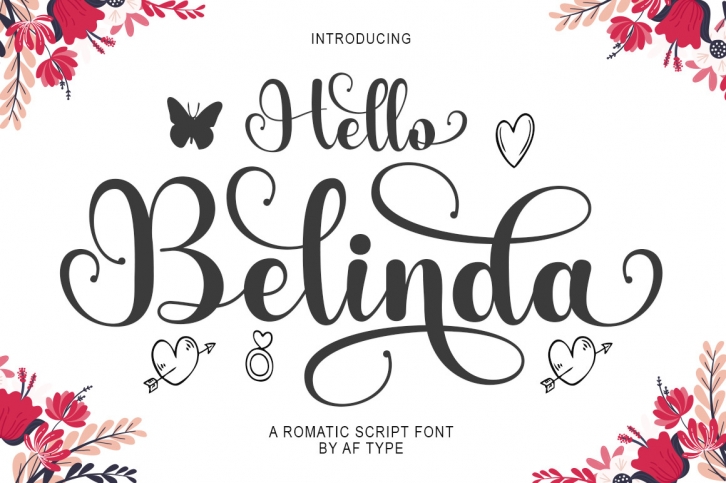
Hello Belinda is a beautiful and timeless handwritten font. It is the best choice for creating attractive logos, branding and quotes. This font is PUA encoded which means you can access all glyphs and swashes with ease!